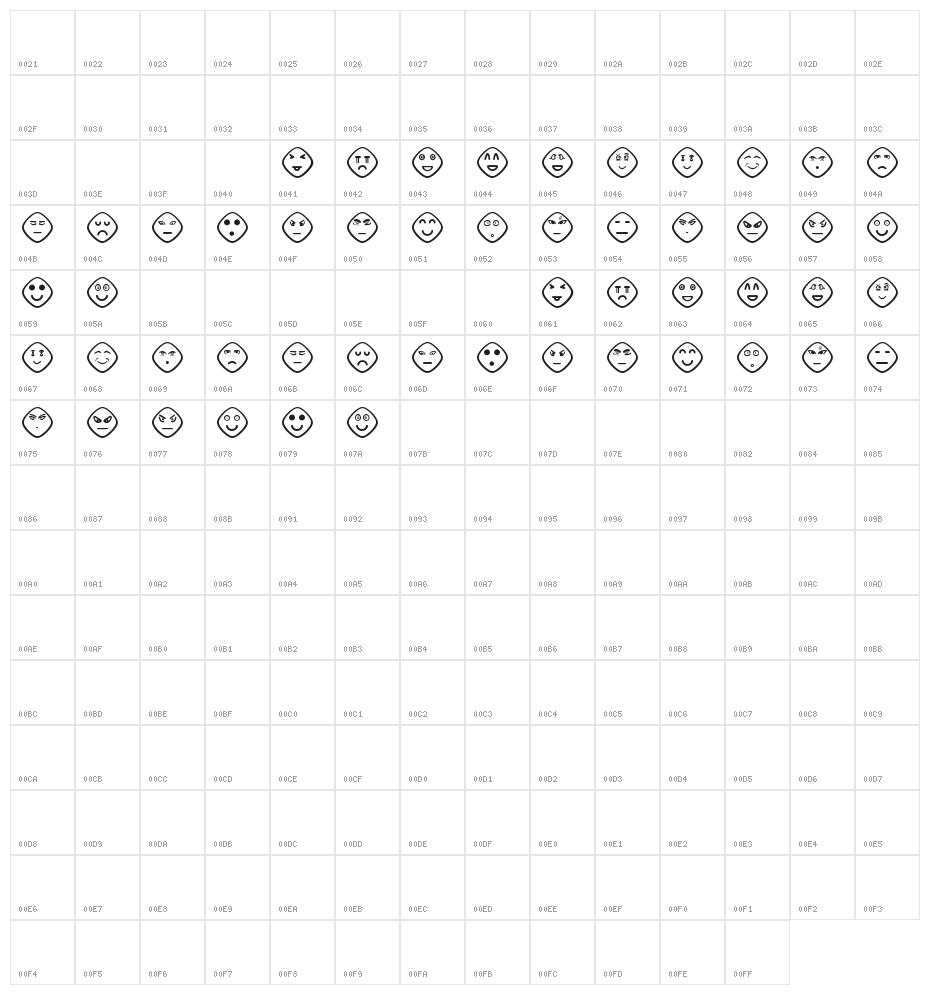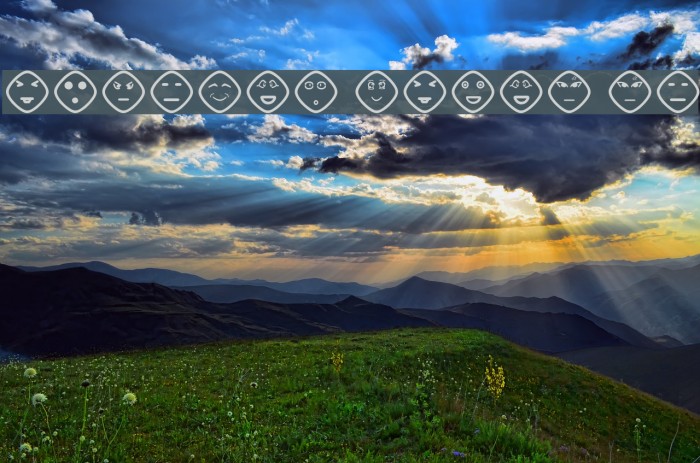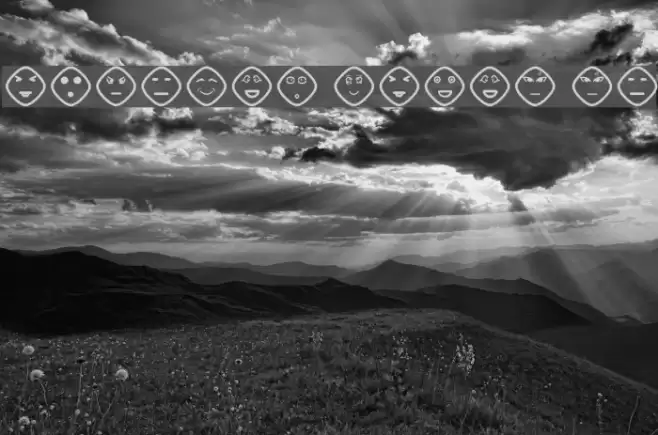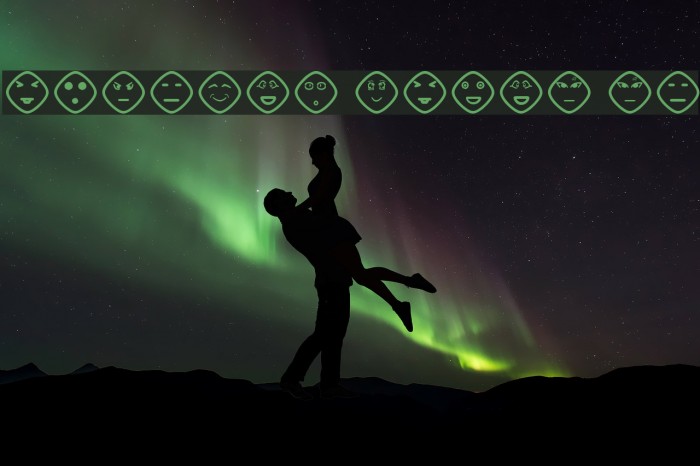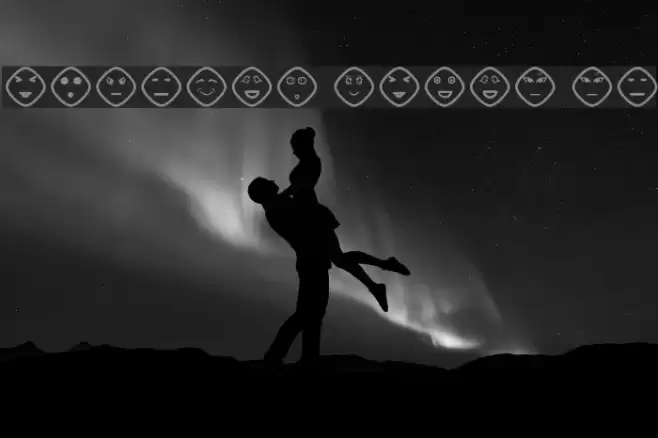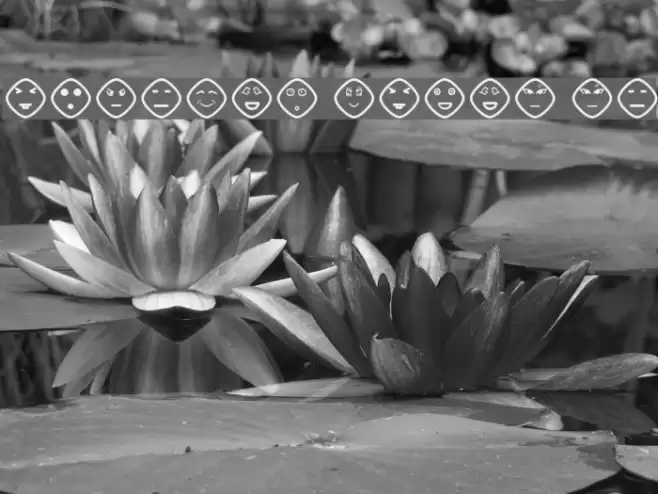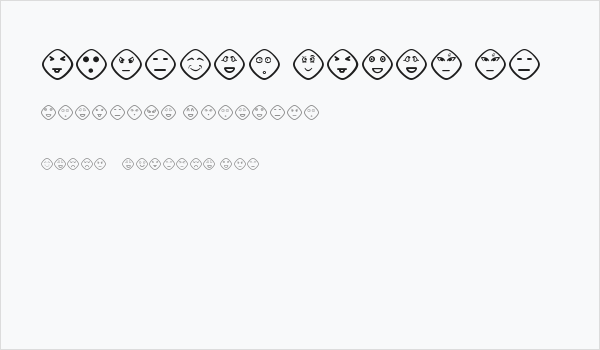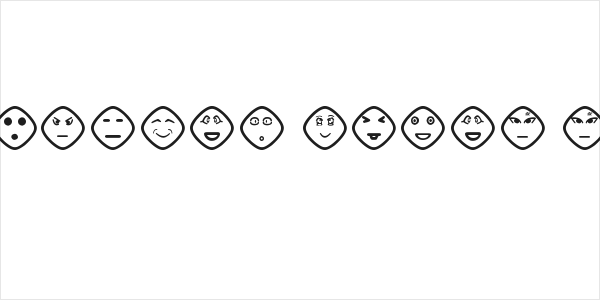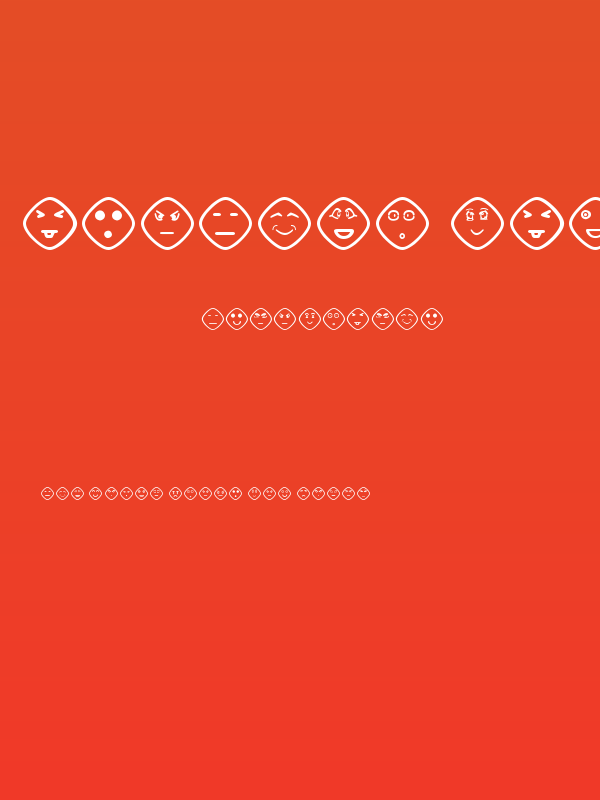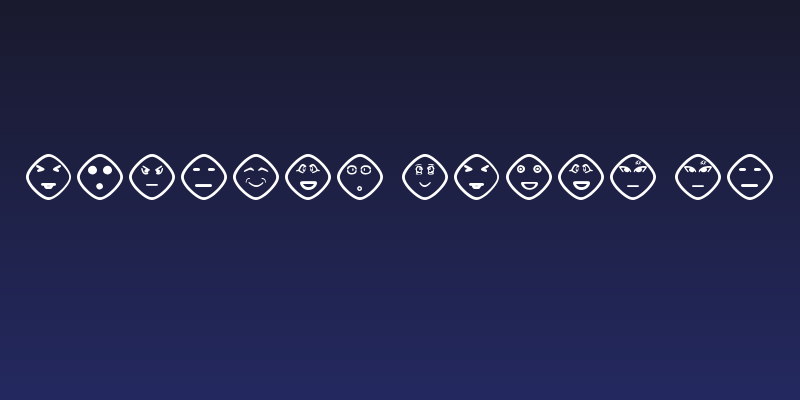
Another Faces St Font
Another Faces St Description
A playful decorative font where each character is represented by a unique cartoon face enclosed in a rounded diamond shape, expressing a variety of emotions and expressions. The lines are bold and consistent, with each glyph maintaining a uniform geometric outline.
| Overall Style | Playful, Decorative, Cartoonish |
| Use Case | Logos, Headlines, Posters, Themed event materials |
| Proposed Projects | Children's books, playful branding, greeting cards, educational materials, comic strips, party invitations. |